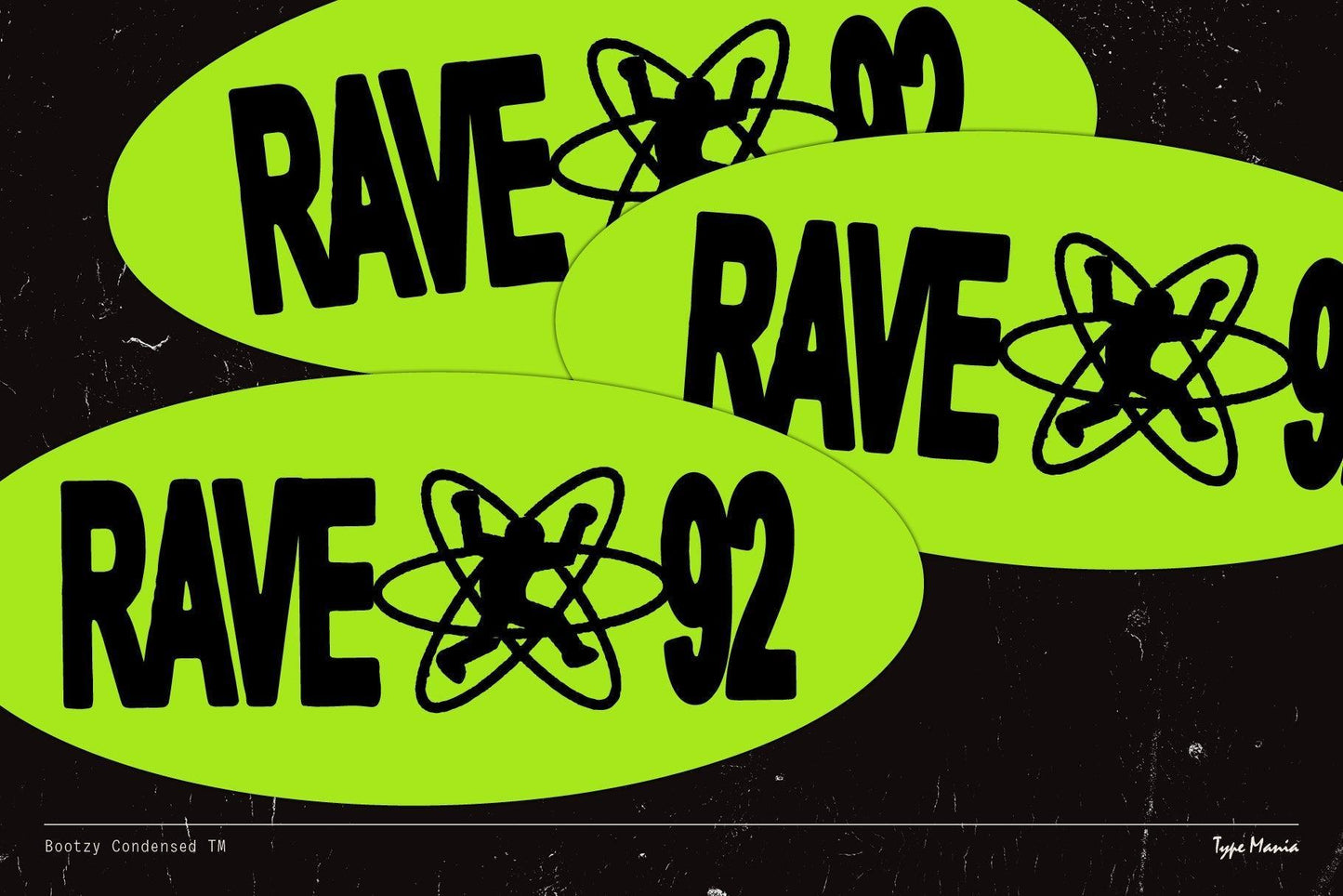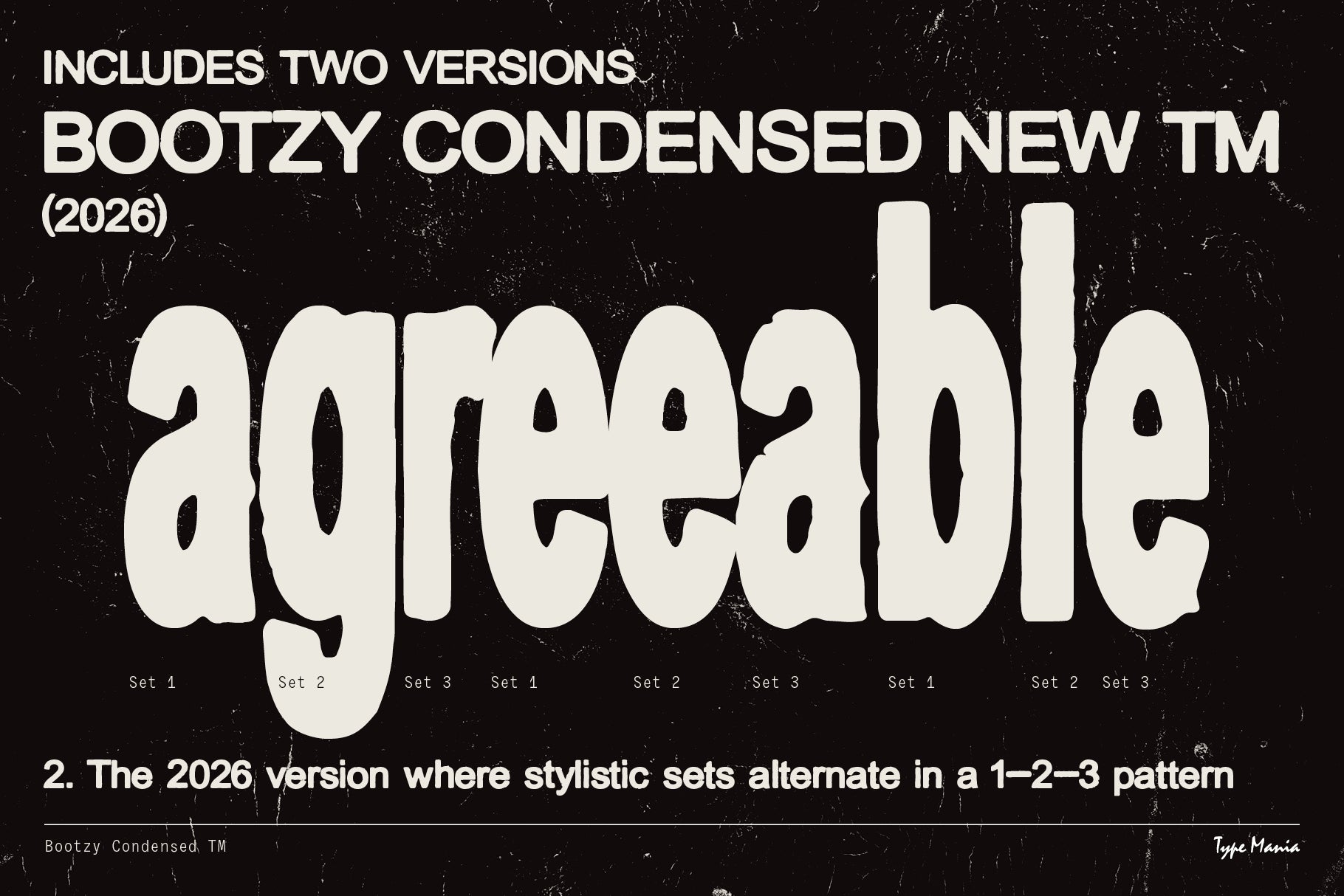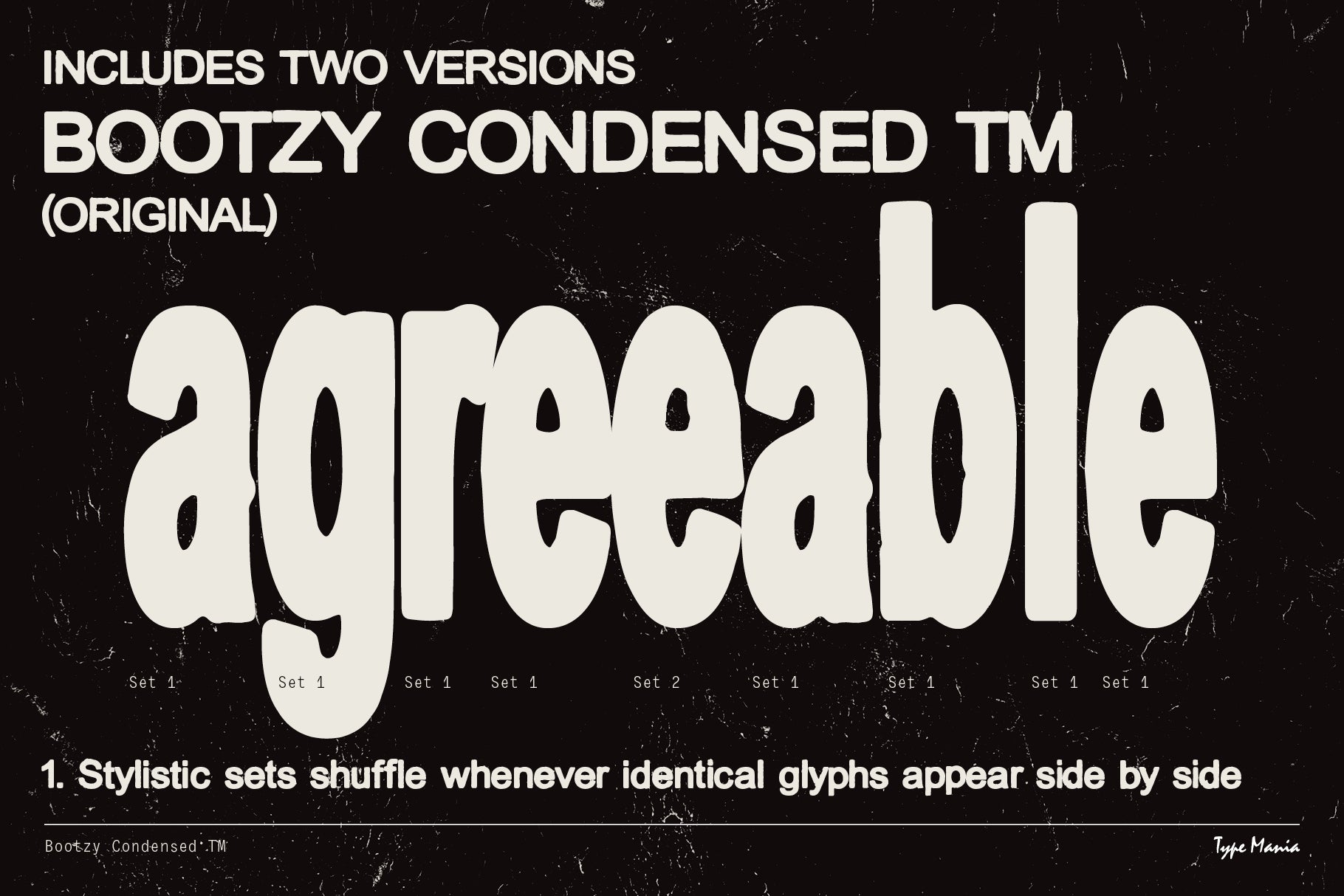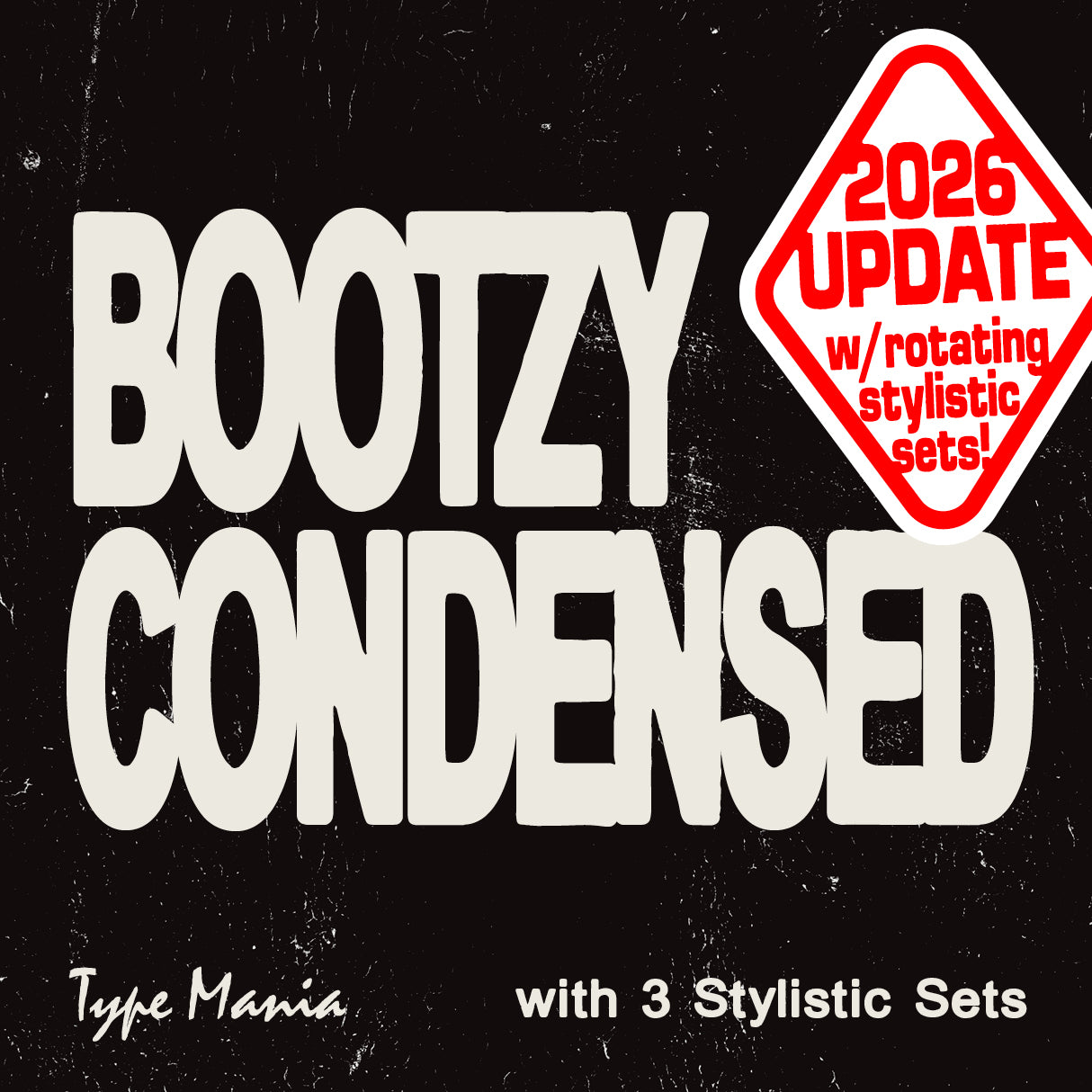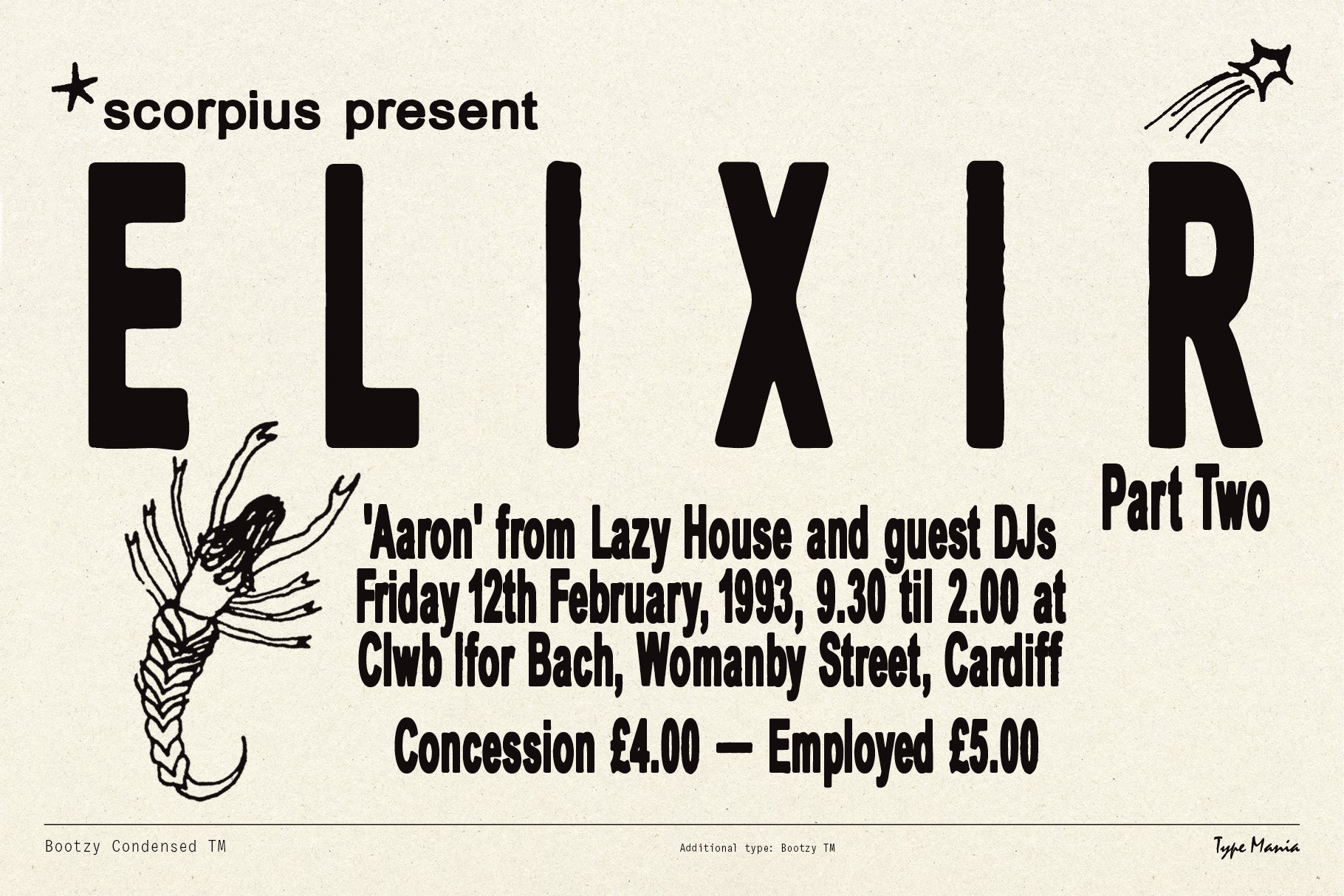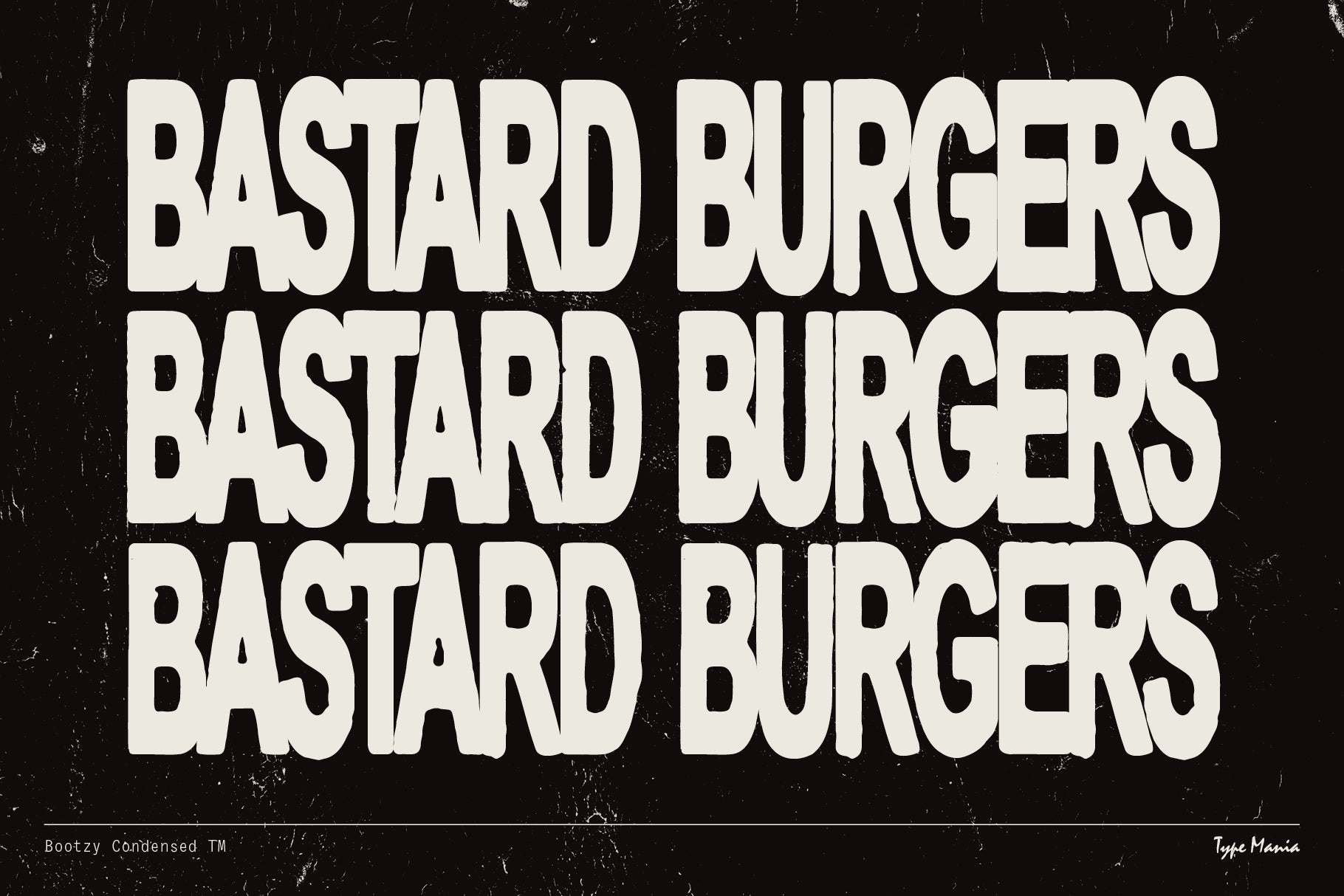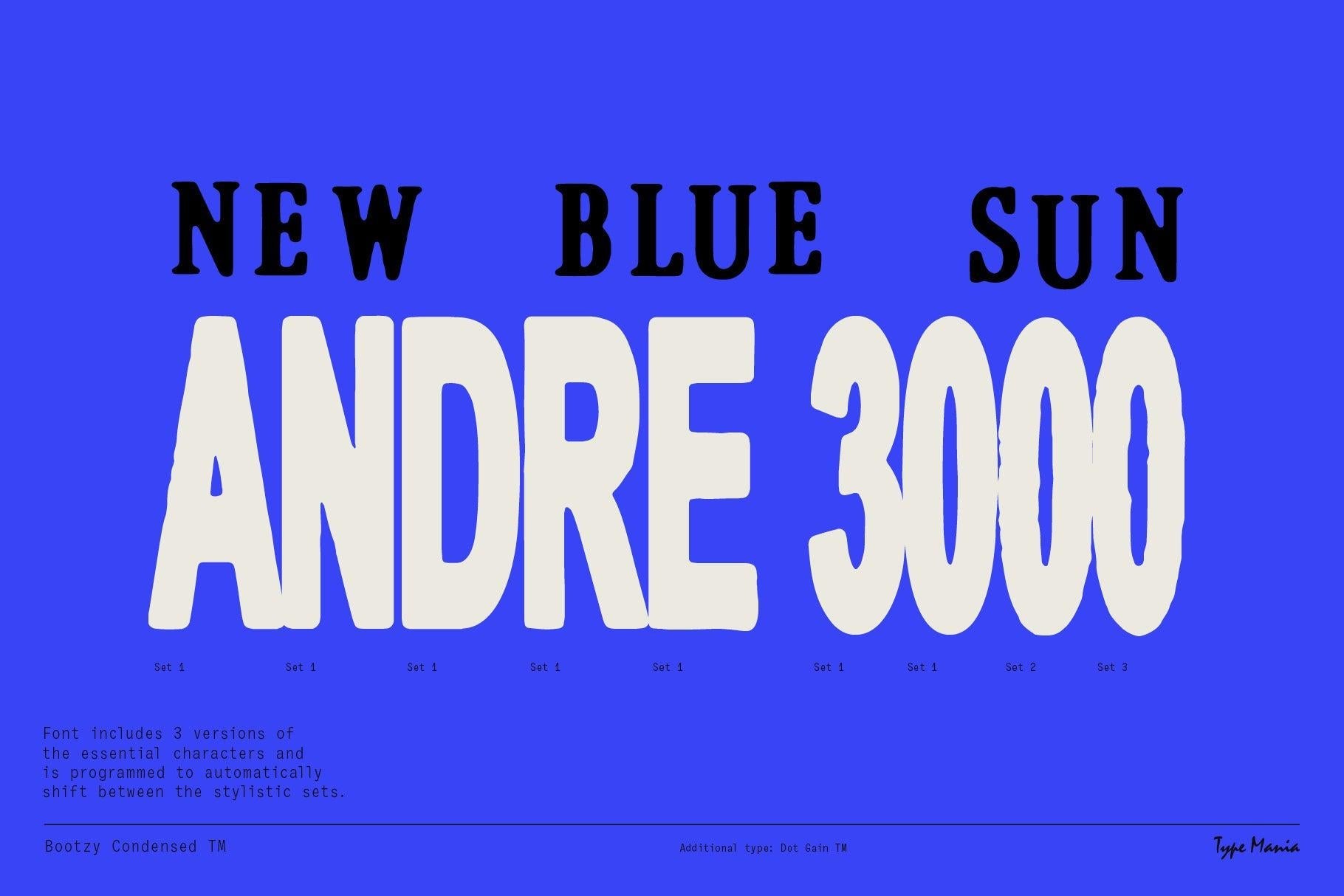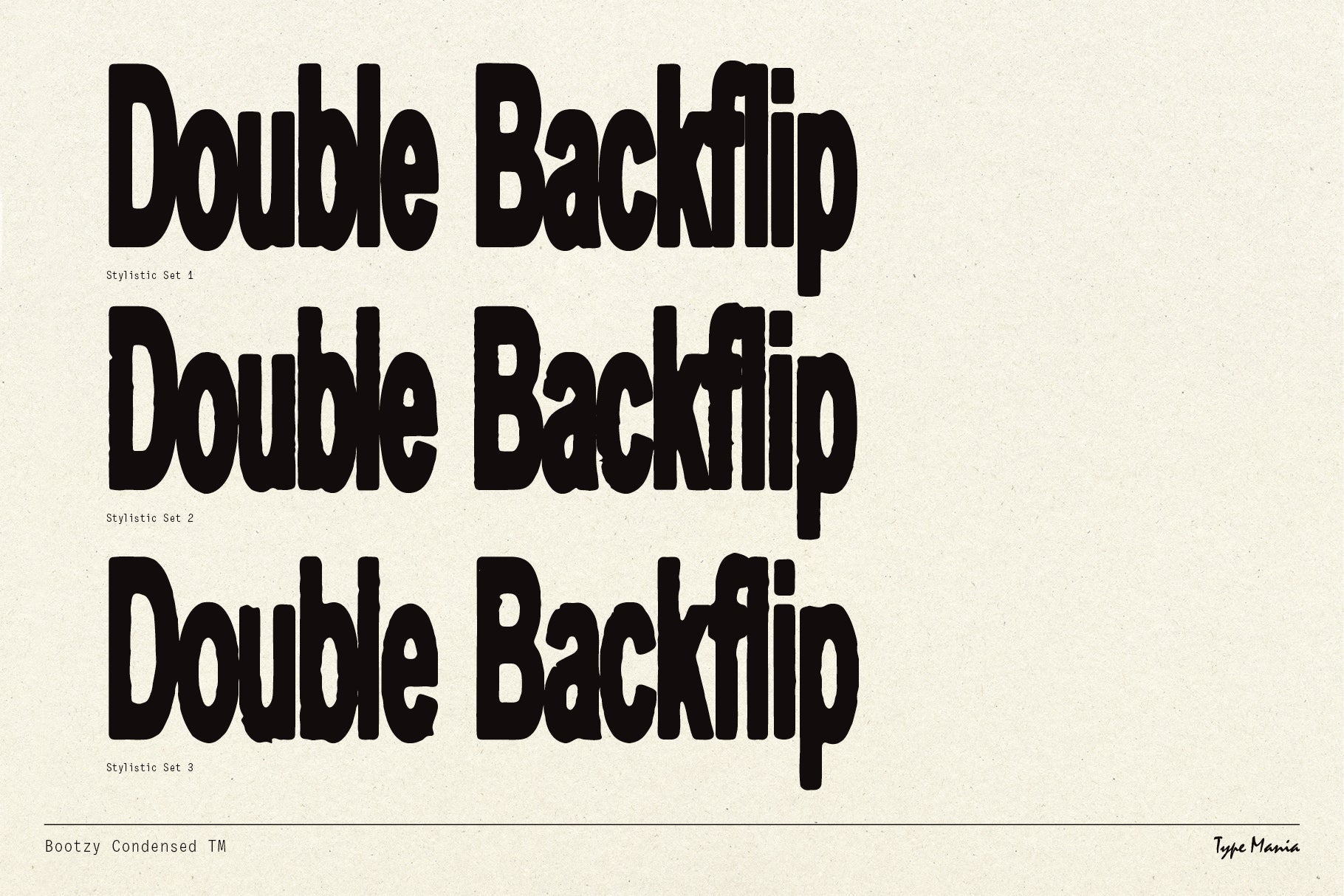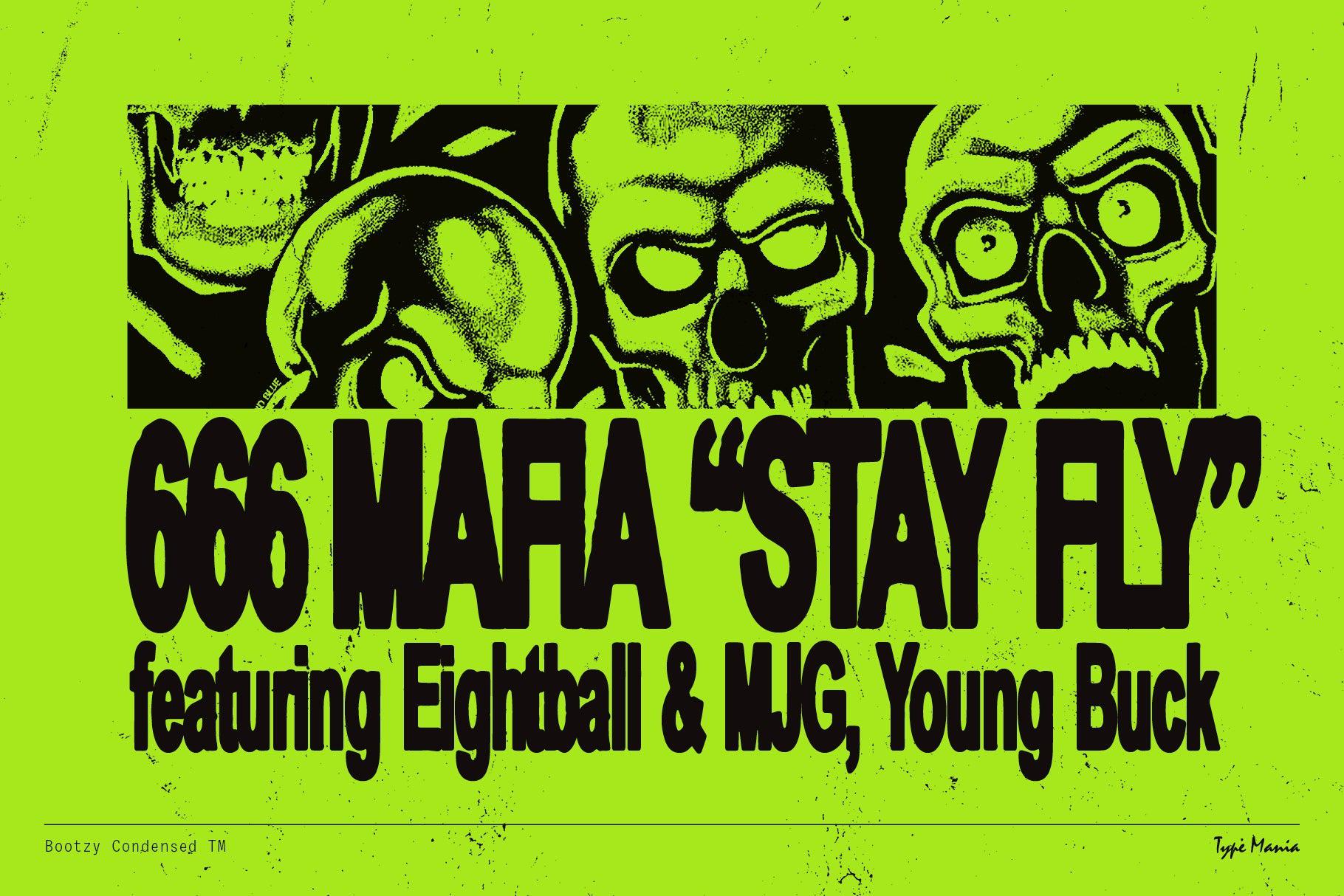
Bootzy Condensed TM
Introducing Bootzy Condensed TM, a rugged display sans serif born from and for the creative underground. Inspired by the DIY ethos of bootlegging, this font is perfect for flyers, zines, and rebellious expressions all over.
- 3 stylistic sets
- Includes two versions of the font: 1. Stylistic sets shuffle whenever identical glyphs appear side by side, 2. A new version where stylistic sets alternate in a 1–2–3 pattern, when the Contextual Alternates is turned on.